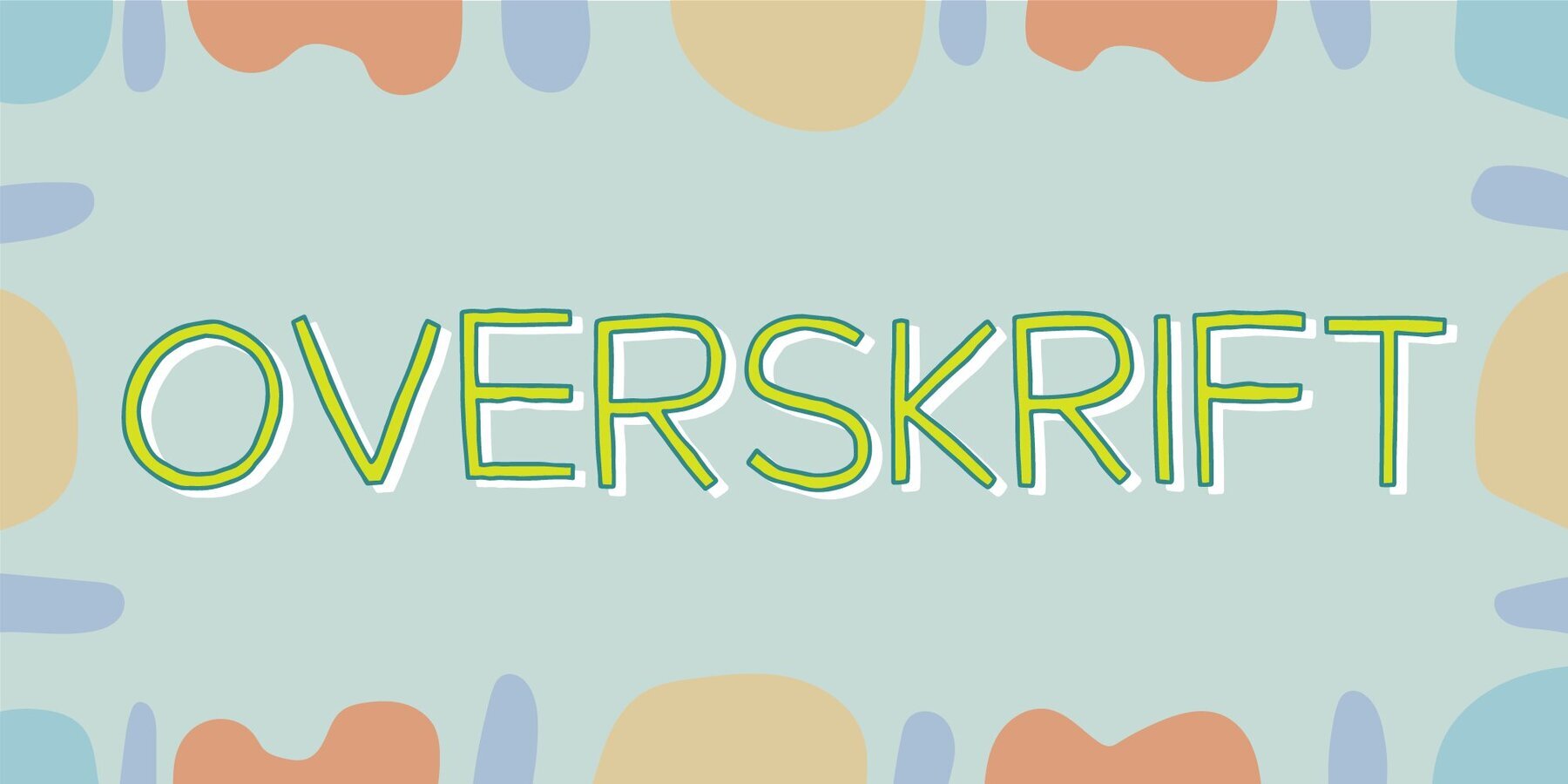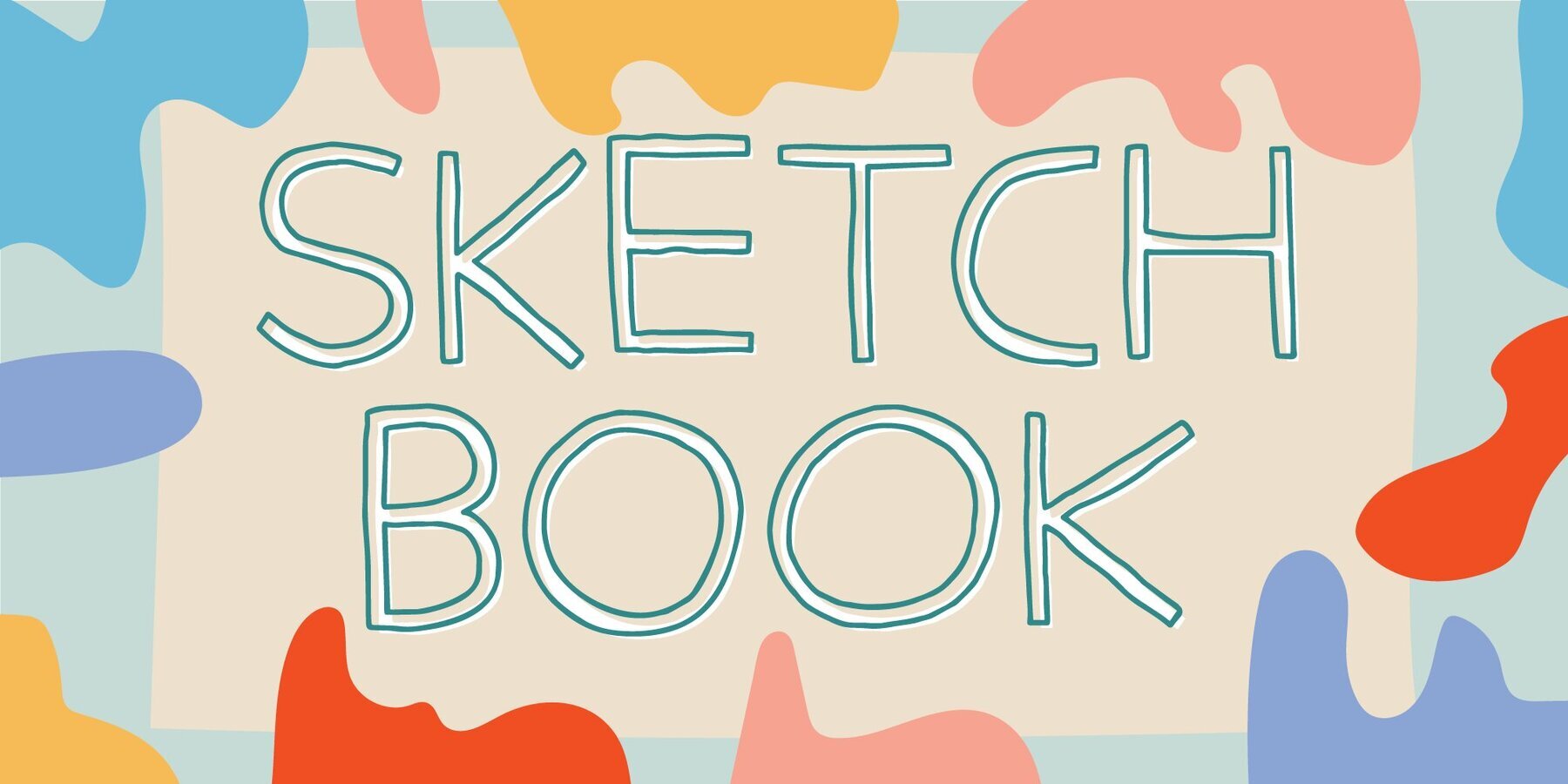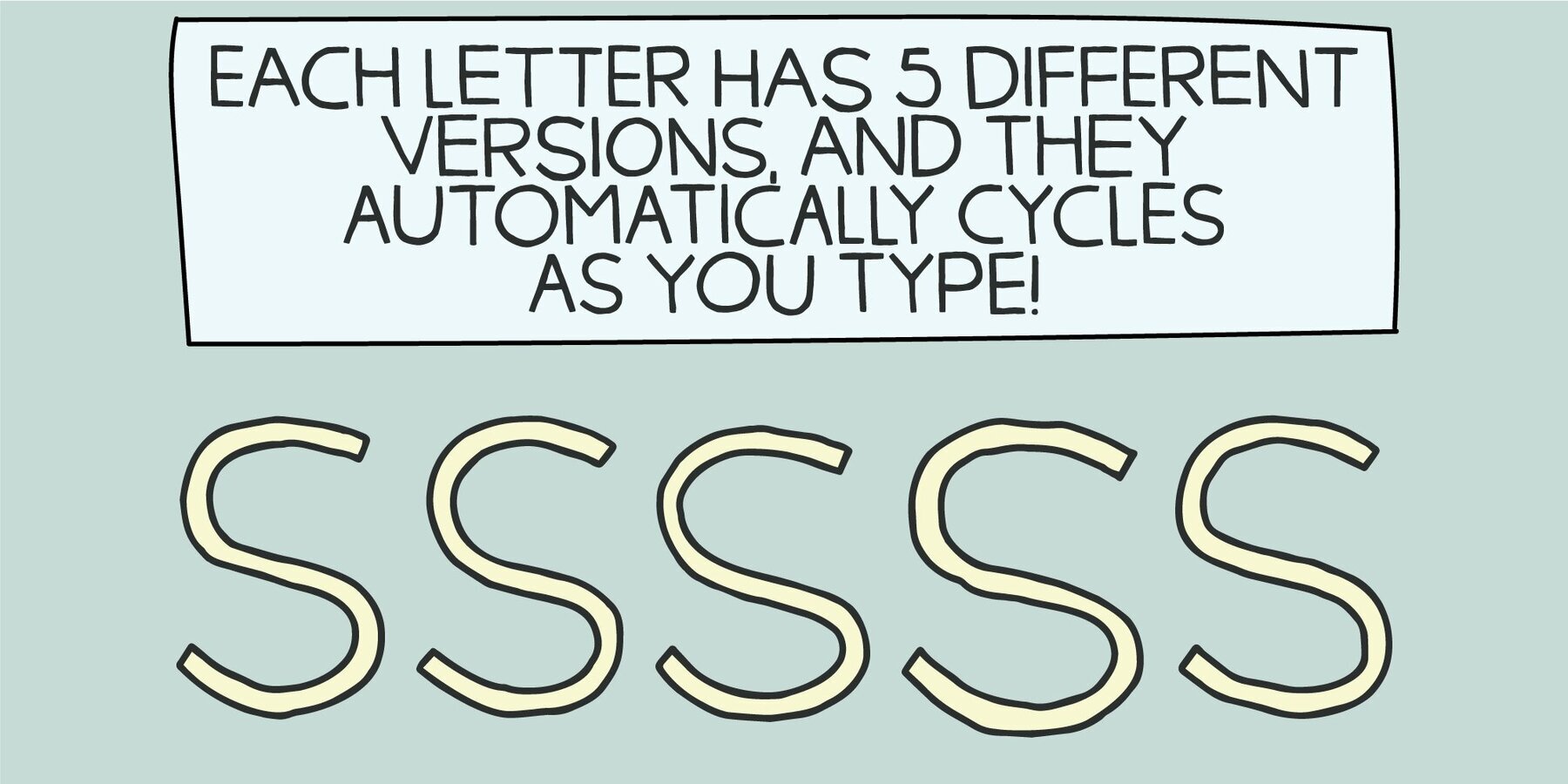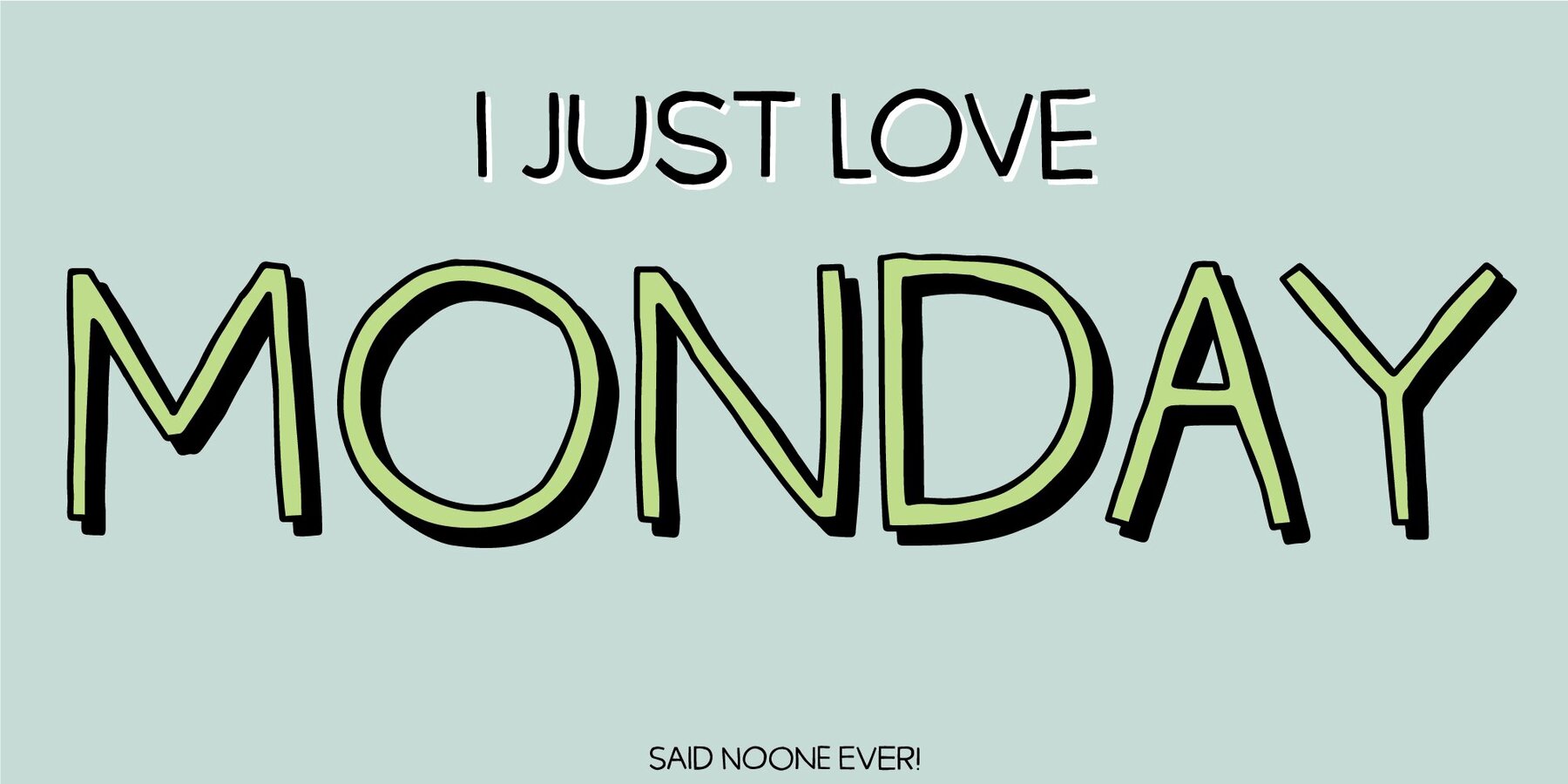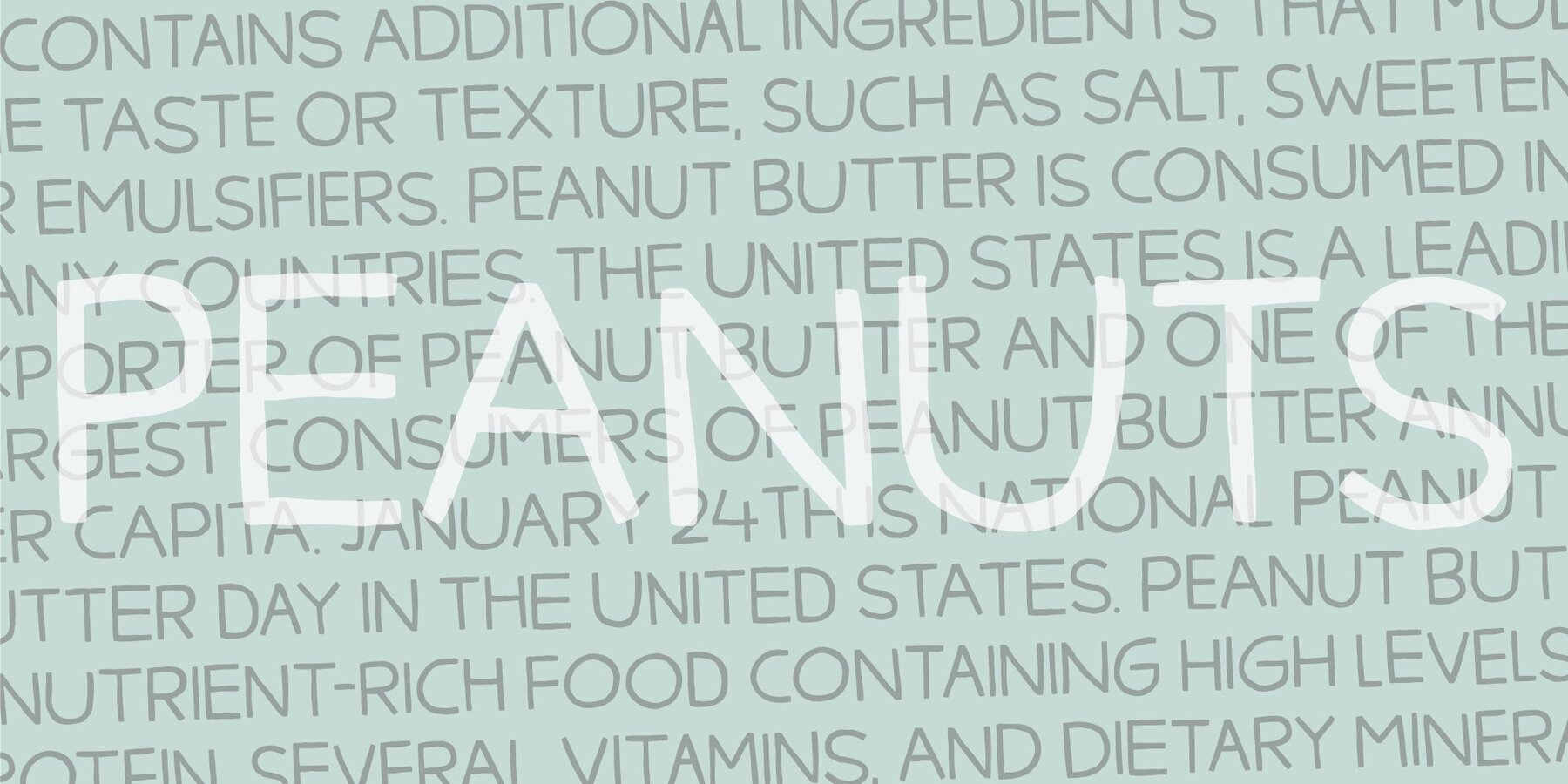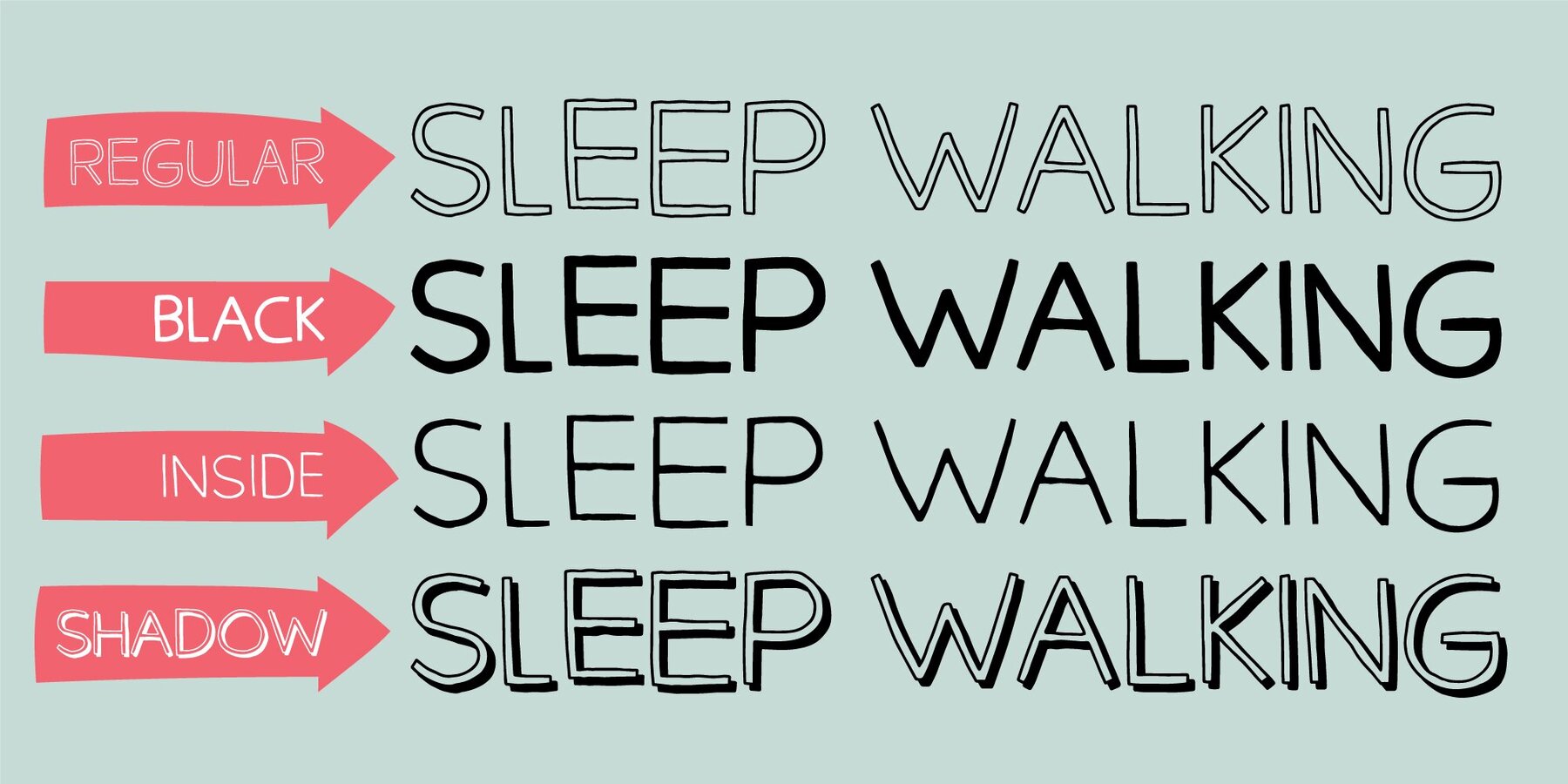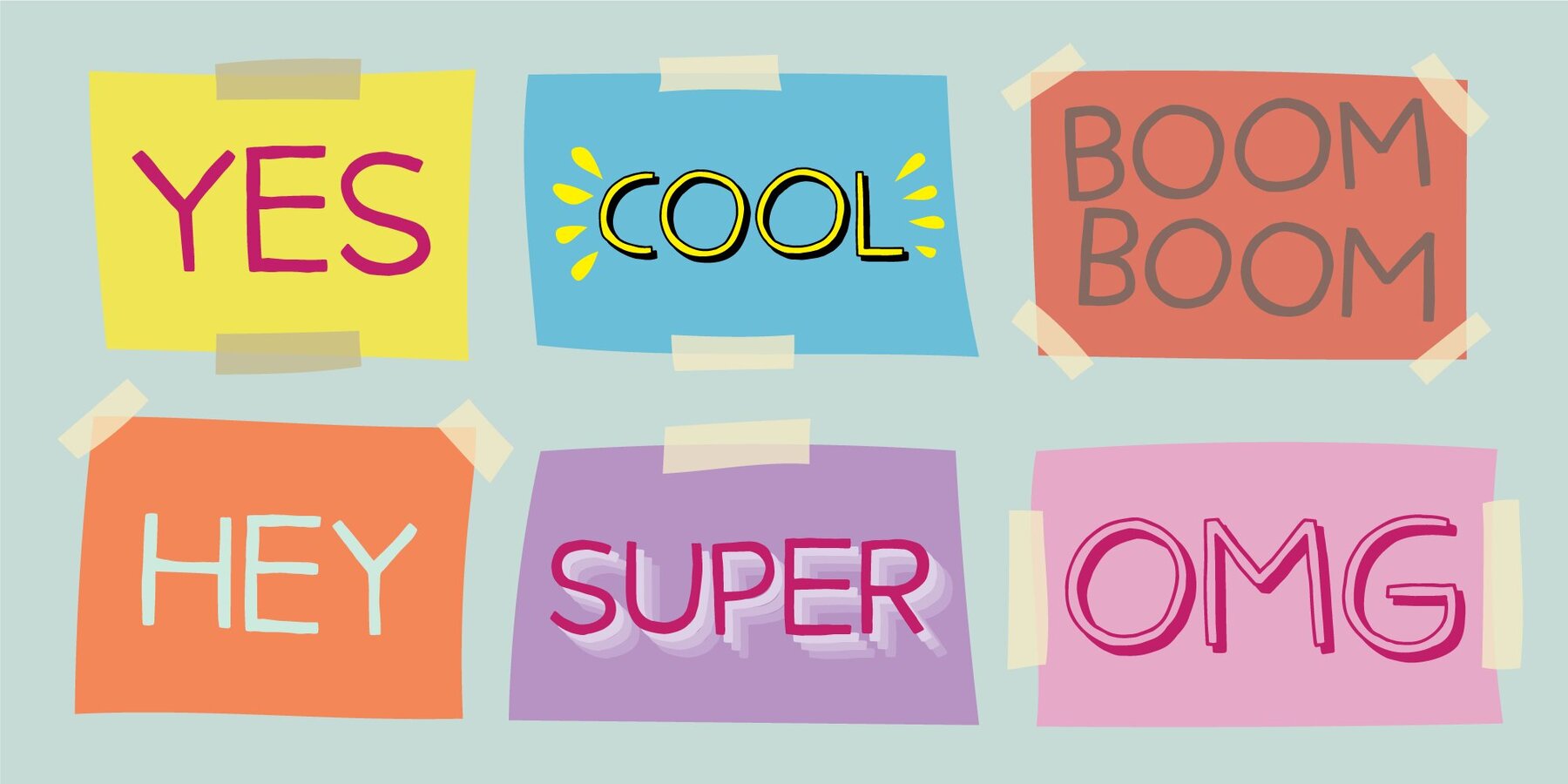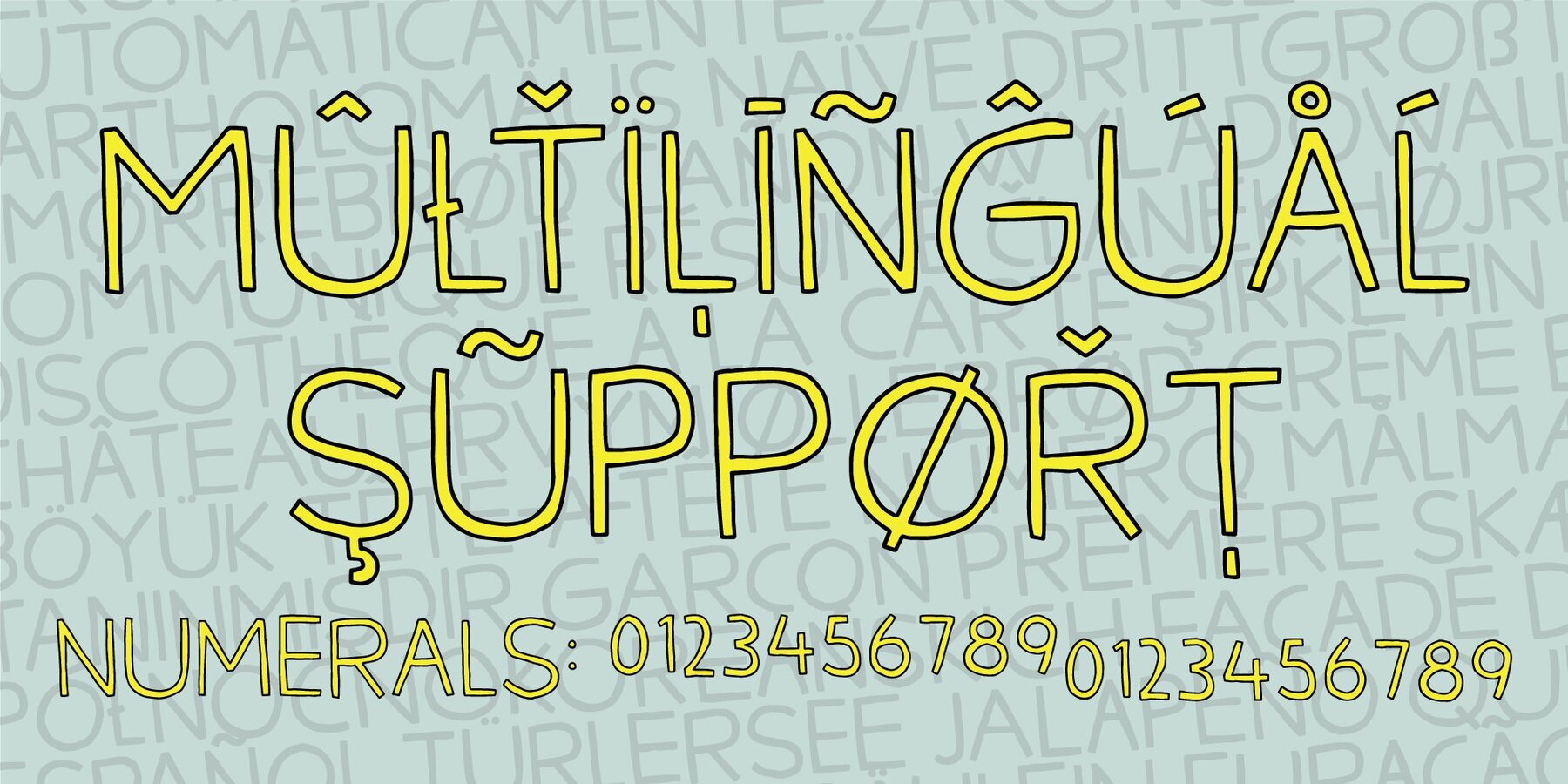
Overskrift Font
Overskrift is headline in danish. My mind was set on making a font suitable for headlines, and that is exactly what this font is useful for - but, I found it suitable for many other things as well. I was thinking about packaging, posters, postcards and other things that needs a super legible handmade font! I have added 5 different versions of each letter, and they automatically cycle as you type!